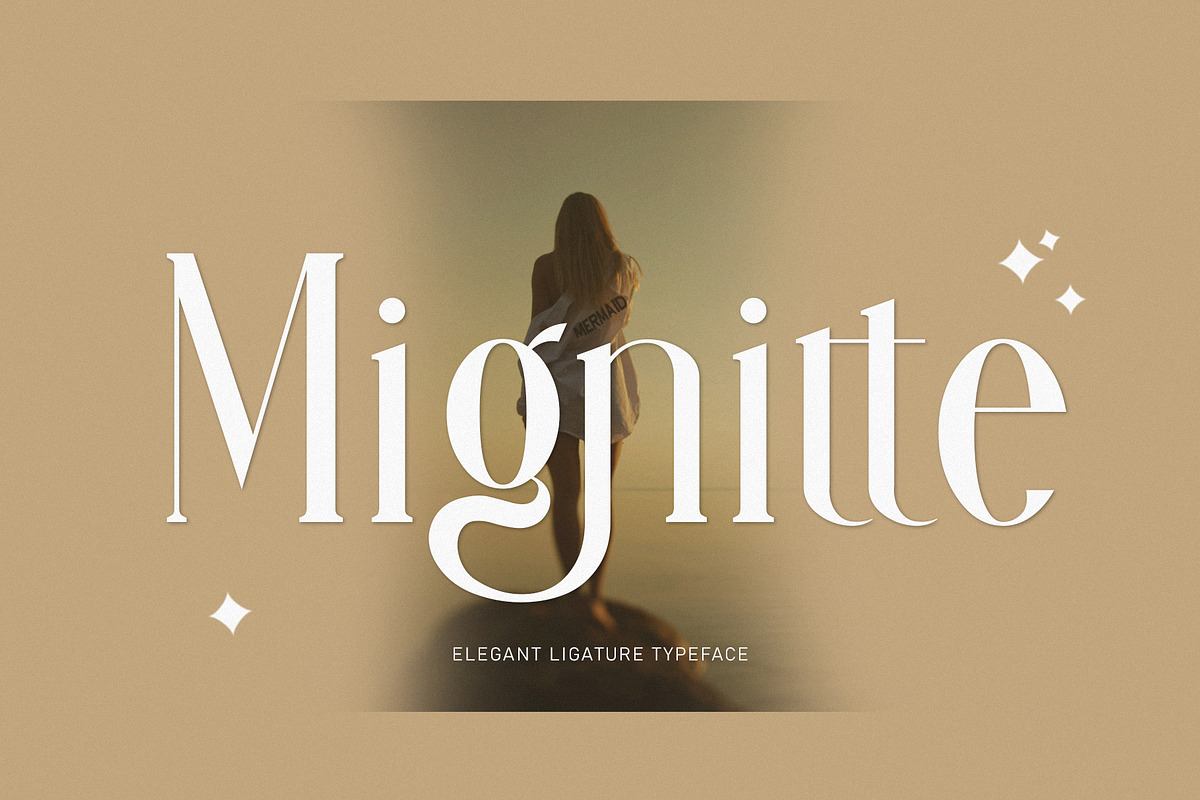
Mignitte Elegant Ligature Serif Font is perfect for luxury brand identities, high-end fashion magazines, elegant wedding invitations, premium packaging design, sophisticated logo creation, upscale restaurant branding, cultural institution materials, fine art gallery publications, exclusive book covers, refined editorial layouts, prestigious business communications, and distinguished typography projects.
Mignitte Elegant Ligature Serif Font is exciting because it represents the pinnacle of typographic refinement through its exquisite ligature system that creates seamless letter connections and flowing elegance that transforms ordinary text into sophisticated visual poetry. This masterful typeface features graceful serif details with innovative ligature combinations that enhance readability while adding distinctive character and luxurious appeal. The font's refined architecture elevates every application with timeless sophistication and contemporary elegance that speaks to discerning audiences.
Mignitte Elegant Ligature Serif Font includes comprehensive font families: Regular Elegant Style, Bold Sophisticated Weight, Light Graceful Touch, Medium Refined Balance, Italic Flowing Slant, Condensed Luxury Format, Extended Prestigious Width, Ligature Connection Sets, Ornamental Decorative Elements, and Special Elegant Symbols, providing complete solutions for sophisticated typography projects and luxury brand communications.
This distinguished typography solution transforms standard communications into extraordinary elegant experiences through its sophisticated ligature system and refined serif craftsmanship. Mignitte Elegant Ligature Serif Font Free Download enables designers and luxury brands to access premium elegant serif typography that instantly adds sophistication, refinement, and luxurious appeal to any creative project. The font's meticulously crafted ligature connections ensure seamless text flow while maintaining exceptional elegance and distinctive character.
Luxury brands, high-end publishers, and sophisticated businesses trust Mignitte Elegant Ligature Serif Font for its ability to communicate exclusivity, refinement, and elegant quality to discerning audiences who appreciate typographic excellence and sophisticated design aesthetics. The typeface's elegant construction performs beautifully across various applications, from intimate luxury communications to large-scale prestigious branding campaigns. Its extensive character support includes multilingual capabilities and elegant design elements that enhance sophisticated brand presentations.
The design excellence behind Mignitte Elegant Ligature Serif Font represents meticulous attention to typographic detail and the pursuit of perfect letter harmony through innovative ligature design and classical serif proportions. This elegance-focused approach creates a font that feels genuinely sophisticated while maintaining contemporary functionality across different luxury contexts and refined brand expressions.